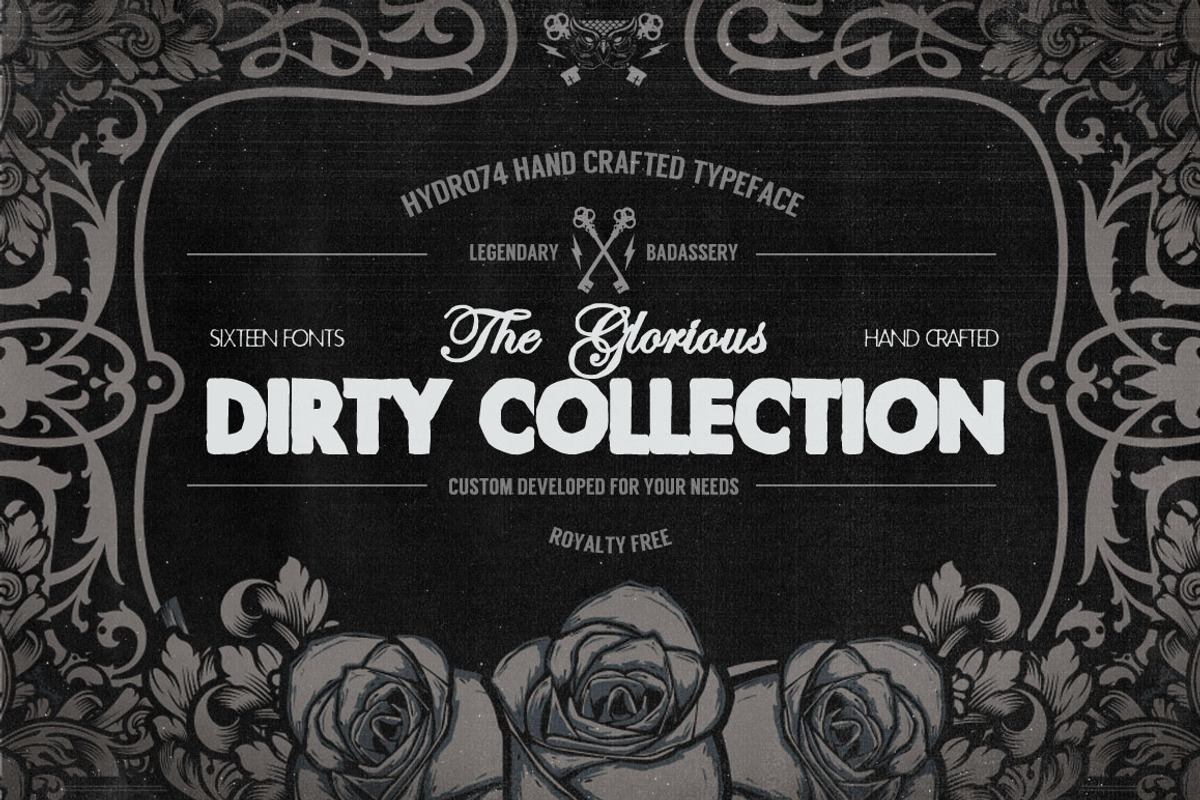
The Dirty Collection - 16 Fonts Free Download
The The Dirty Collection - 16 Fonts Free Download is a versatile set of fonts designed to add a rugged, distressed look to your projects. This collection features 16 unique fonts, each with its own raw, hand-crafted style that makes it perfect for creative designs that need an edgy, worn-out vibe. Whether you're working on branding, posters, album covers, or merchandise, The Dirty Collection brings a touch of boldness and character to your designs.
The Dirty Collection - 16 Fonts Free Download is ideal for designers seeking a mix of distressed and bold styles. With 16 different fonts to choose from, this collection offers endless possibilities to create unique, eye-catching designs. Download this fantastic font collection today and add a gritty, modern edge to your creative work!